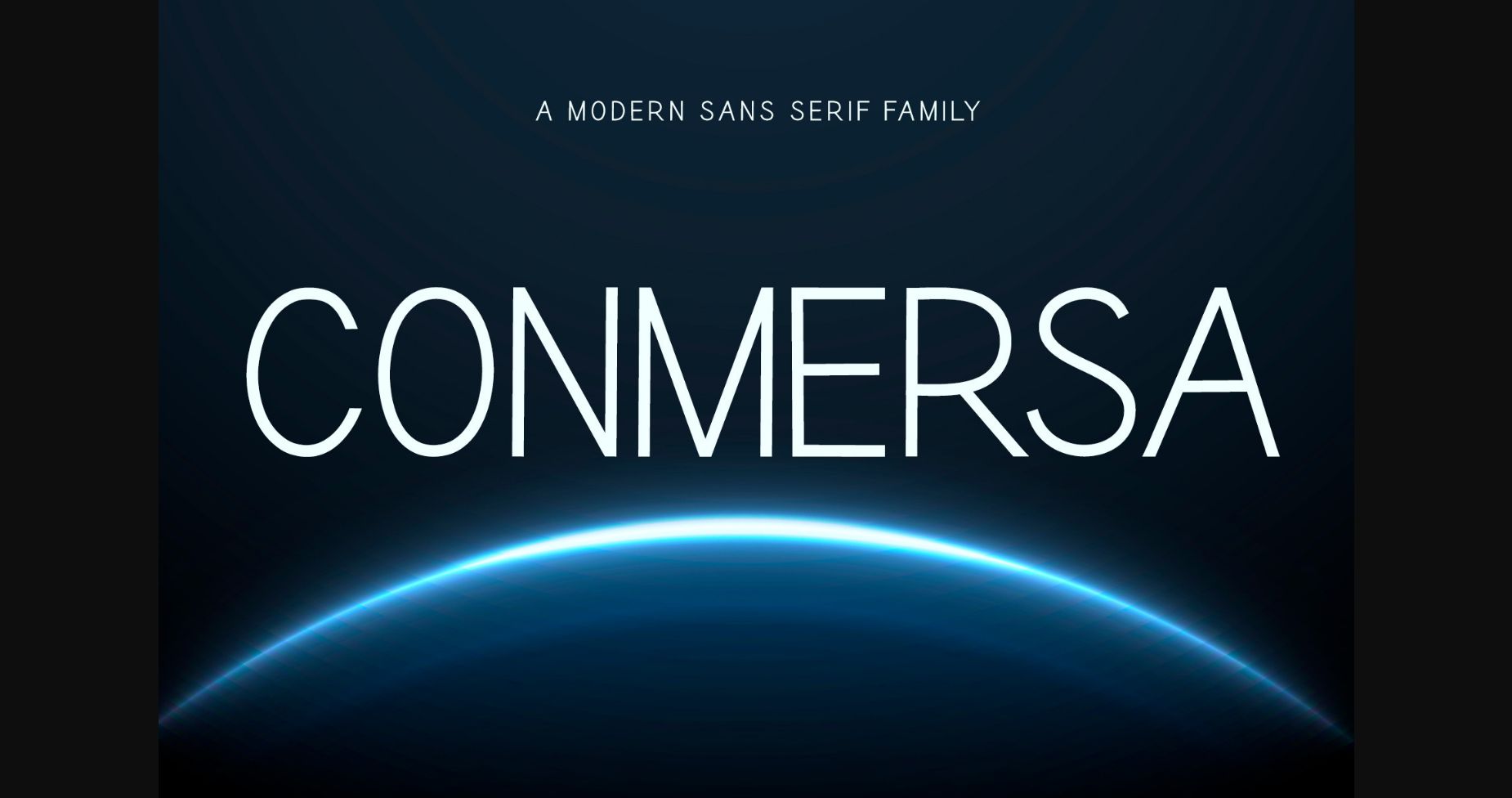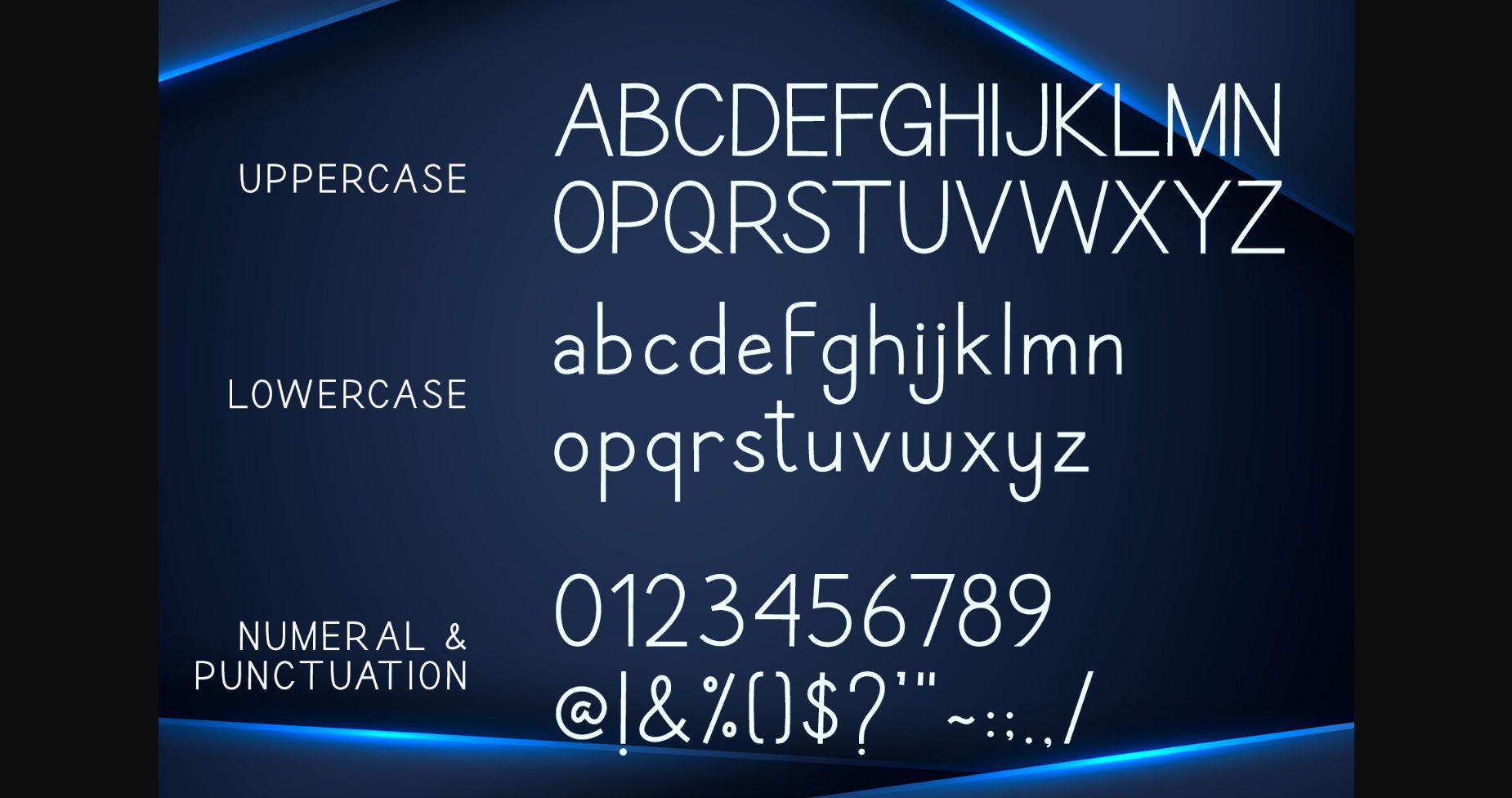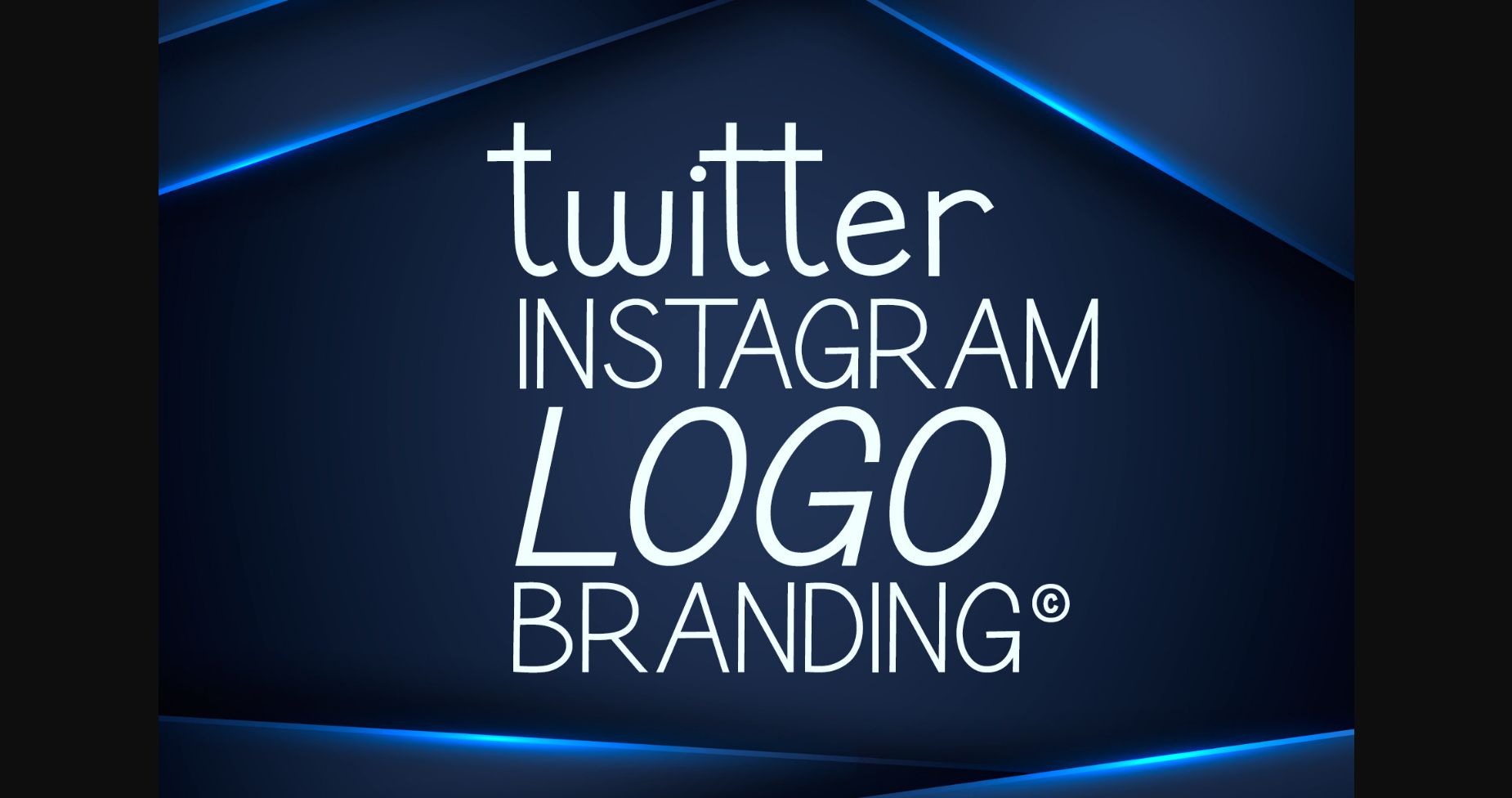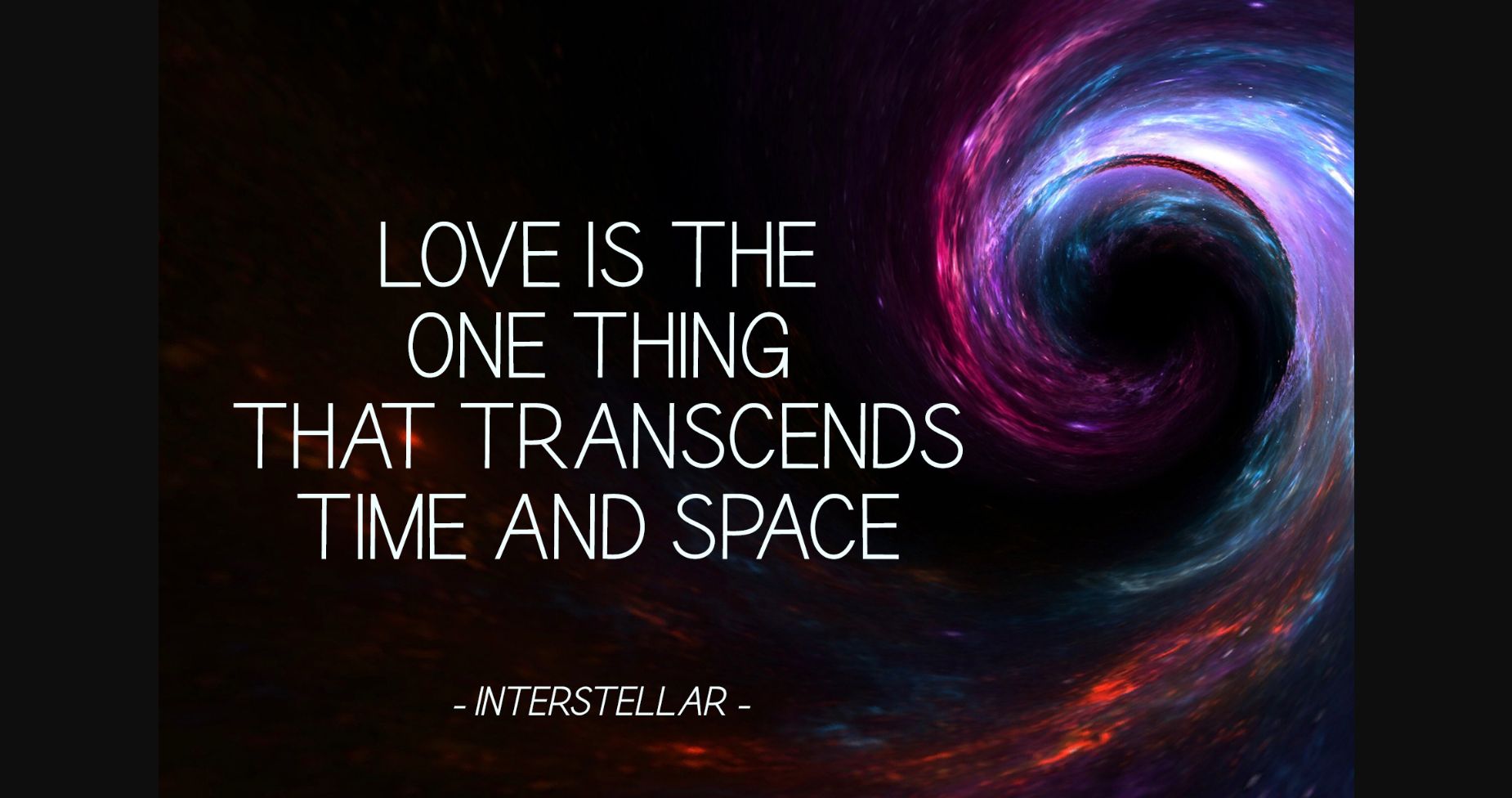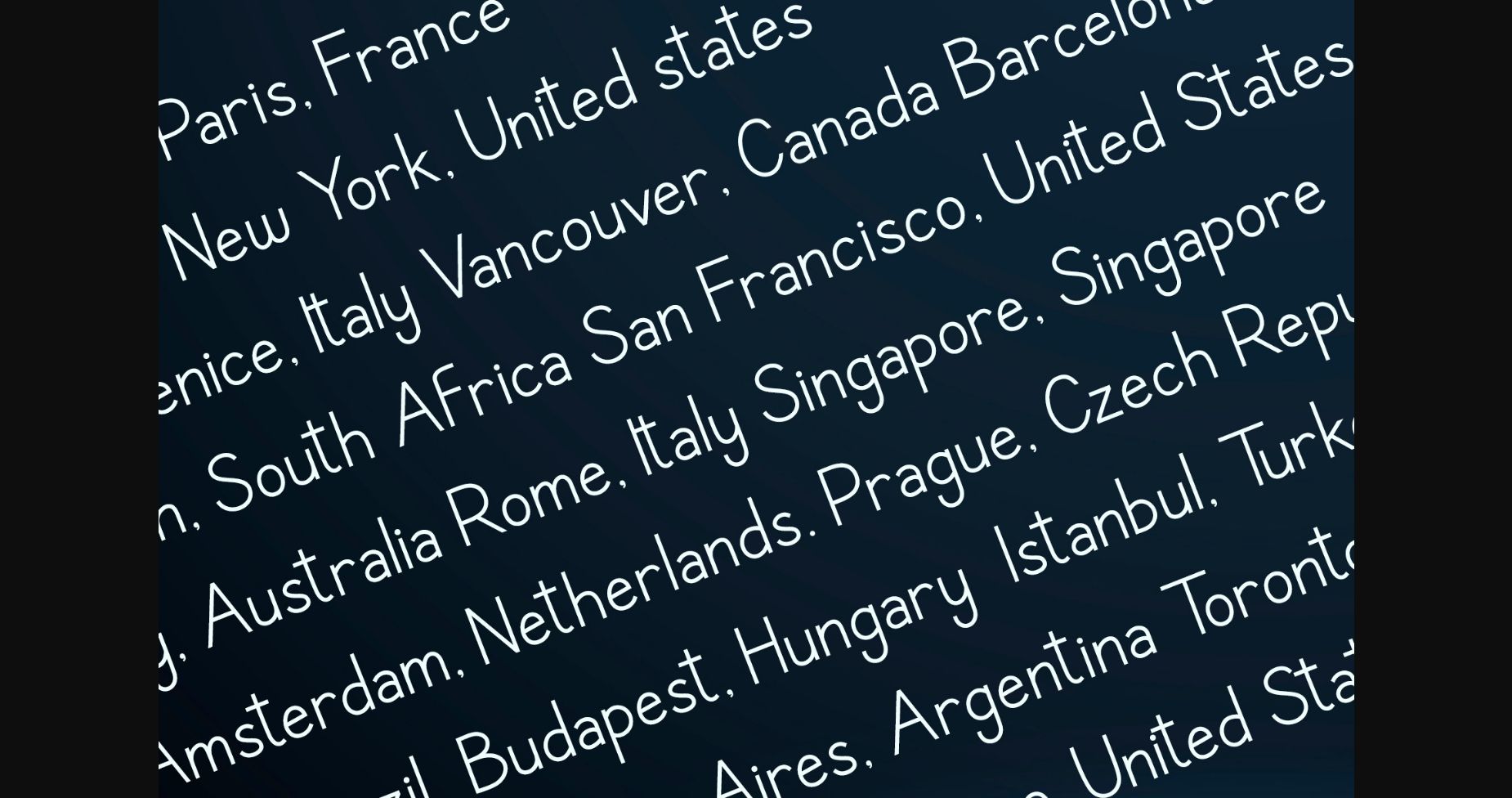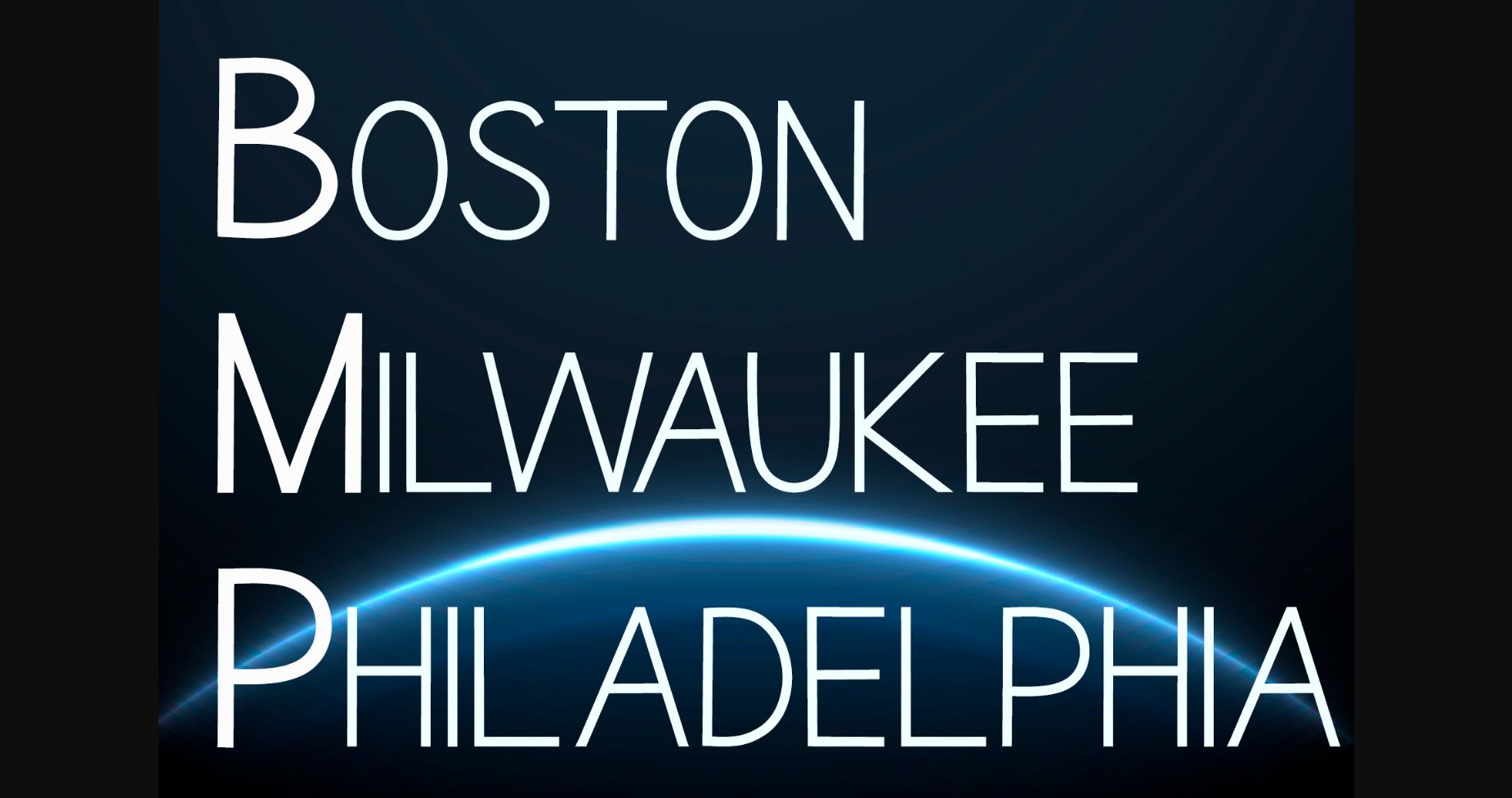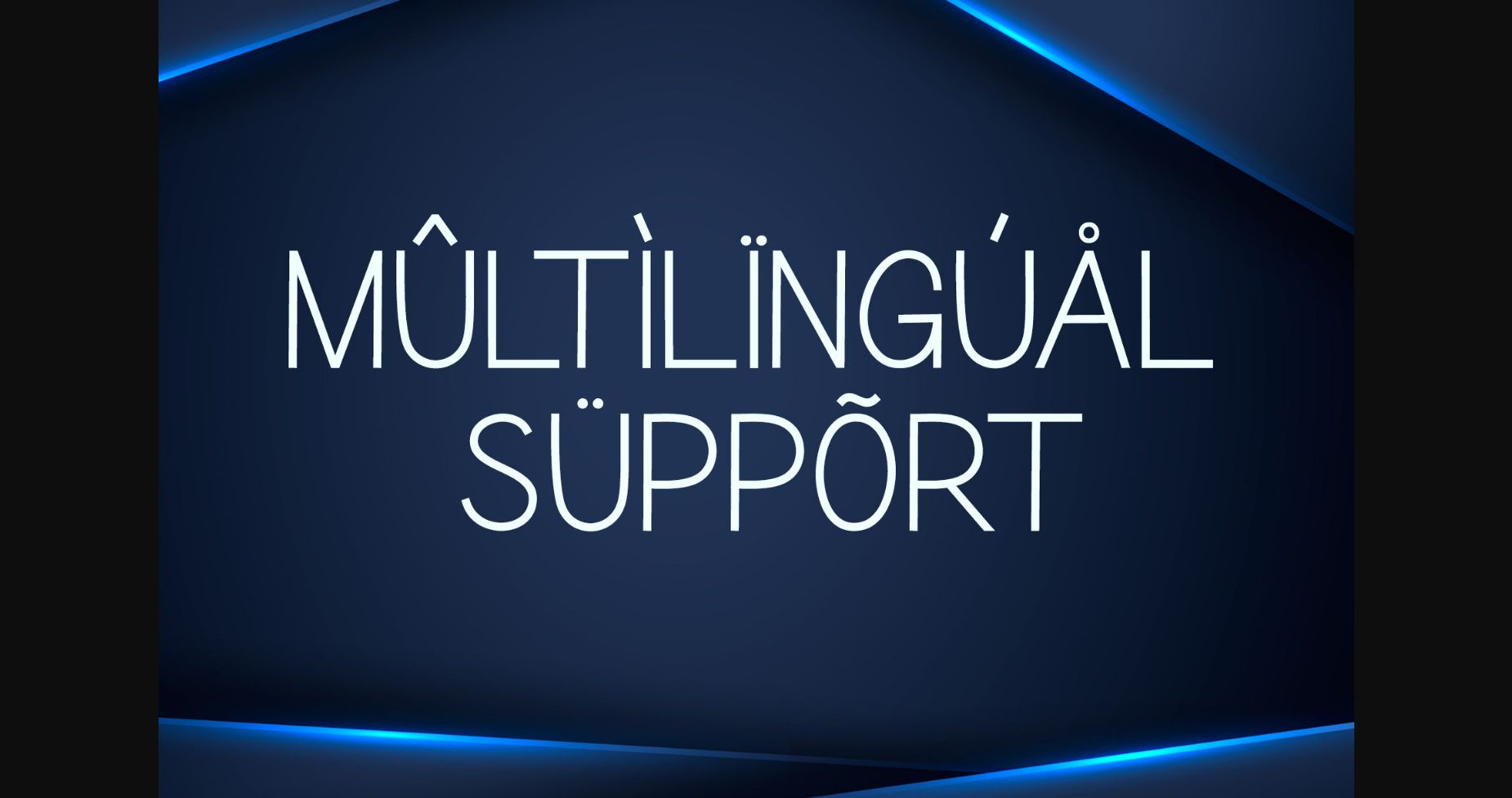
HomeSans Serif FontsConmersa Font Sans Serif Fonts Conmersa Font FacebookXPinterestWhatsApp 1 of 10 ... Conmersa Font Poster 2... Conmersa Font Poster 3... Conmersa Font Poster 4... Conmersa Font Poster 5... Conmersa Font Poster 6... Conmersa Font Poster 7... Conmersa Font Poster 8... Conmersa Font Poster 9... Conmersa Font Poster 10... About Conmersa Font Conmersa is a minimal and neat sans serif font. It can easily be matched to an incredibly large set of projects, so add it to your creative ideas and notice how it makes them stand out! DOWNLOAD NOW People also explored Jillate Font Coffee Break Font Kiq Font Alexandria Font Rommantis Font Trouble Font Fairy Font I Am Cool Font Kellang Rika Font 304 0 TagsConmersa Font Previous articleSotea FontNext articleMarmalede Font LEAVE A REPLY Cancel reply Comment: Please enter your comment! Name:* Please enter your name here Email:* You have entered an incorrect email address! Please enter your email address here Website: Save my name, email, and website in this browser for the next time I comment. Personal Use Free Forturn Personal Use Free Read more about this font City Tour Personal Use Free Read more about this font My Ugly Handwritting Personal Use Free Read more about this font The 10 Best Handwriting Fonts to Add Personality to Your Designs Blog Read more about this font BLOG Free Fonts Risk: Why Free Fonts Can Be Dangerous for Designers Free Fonts Risk: Why Free Fonts Can Be Dangerous for Designers Using free fonts is a common practice in web and graphic design. However, the... Using Fonts in Digital Marketing: Tips to Strengthen Your Brand Identity How to Cut Any Font on Cricut: Convert a Font to SVG (Free) Elegant Wedding Invitation Fonts – Handwritten & Script Fonts